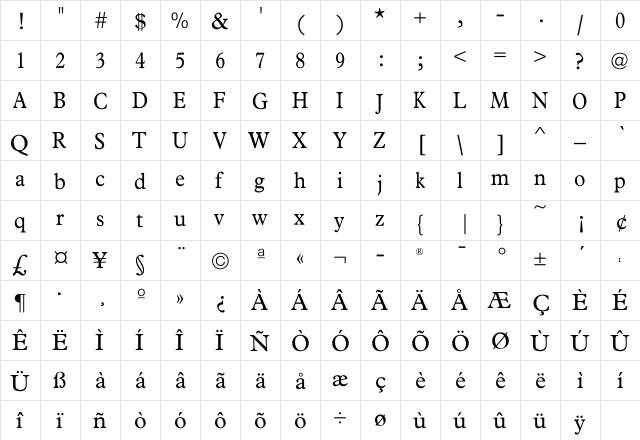
TRGPlantin Regular
Design Context for TRGPlantin Typeface
TRGPlantin offers clean, dependable letterforms without strong stylistic allegiance, making it a practical choice for designers who need flexibility.
Pro Tip: Use TRGPlantin in both headline and body roles to test its range before committing to a single application.